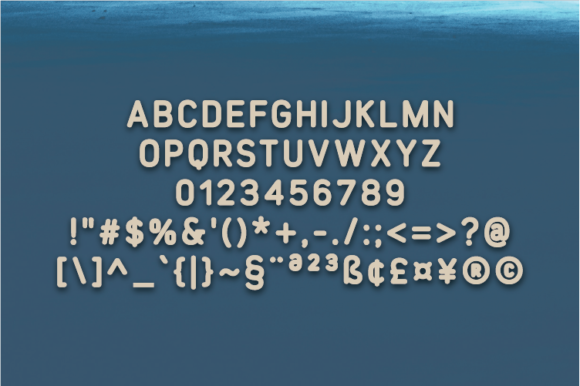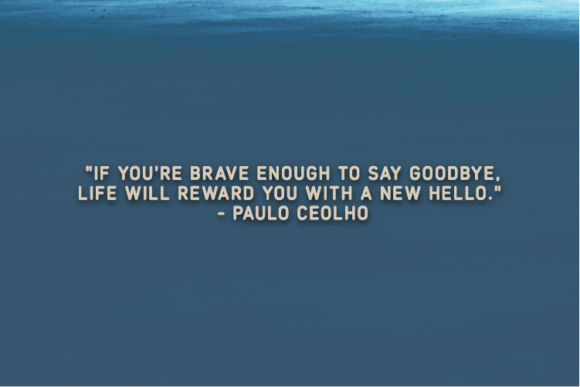
Introduction to Hestion Font
Have you ever stared at a blank canvas, waiting for inspiration to strike? The blank page can be a daunting sight, but what if you had the perfect design resource to spark your creativity? For designers, finding the right font can make all the difference between a mediocre project and a masterpiece.
Enter Hestion Font, a sleek and modern sans serif font that’s perfect for any creative project. With its clean lines and minimalist aesthetic, Hestion Font is an excellent choice for designers looking to add a touch of sophistication to their designs. Whether you’re working on a logo, brochure, or website, Hestion Font is a versatile design tool that can elevate your project to the next level.
Key Features of Hestion Font
- High-quality design resource with a modern and creative touch suitable for various creative projects.
- Unique characteristics include its clean and elegant design, making it an excellent choice for logos, branding, and typography-based projects.
- Comprehensive character set, including international characters and symbols, making it a valuable resource for multilingual designs.
Honest Review: Hestion Font
I recently stumbled upon the Hestion Font and I must say it’s been a game-changer for my creative projects. As a designer, I’m always on the lookout for high-quality design resources that can elevate my work.
One of the things that stood out to me about the Hestion Font is its clean and modern aesthetic. It’s perfect for creating a professional and sleek look in my designs. The font is also incredibly versatile, making it suitable for a wide range of creative projects.
- High-quality design with a clean and modern aesthetic
- Perfect for creating professional and sleek designs
- Great for a wide range of creative projects
- May not be suitable for projects requiring a transparent background
- Some users may find the font too minimalist
Tips for Getting the Most Out of Hestion Font
For optimal results, use Hestion Font in conjunction with a high-quality image or graphic. Experiment with different font sizes and styles to achieve the desired look.
Hestion Font is ideal for:
1. Brochures and flyers
2. Social media graphics
3. Business cards and letterheads
Alternatives to Hestion Font
Open Sans is a highly legible and modern sans-serif font ideal for creative projects and digital design resources. It features a transparent background and is available for free download. When to use: Open Sans is perfect for designing websites, mobile apps, and marketing materials that require a clean and modern look.
Comparison to Hestion Font: While Hestion Font has a more elegant feel, Open Sans is more versatile and suitable for a wide range of design projects.
Lato is a elegant and sophisticated font designed for creative projects and design resources. It features a clean and modern design with a transparent background, making it perfect for high-quality design work. When to use: Lato is ideal for designing luxury brands, high-end websites, and marketing materials that require a touch of sophistication.
Comparison to Hestion Font: Lato has a more refined and elegant feel compared to Hestion Font, making it suitable for high-end design projects.
Montserrat is a geometric sans-serif font designed for creative projects and design resources. It features a clean and modern design with a transparent background, making it perfect for high-quality design work. When to use: Montserrat is ideal for designing websites, mobile apps, and marketing materials that require a clean and modern look.